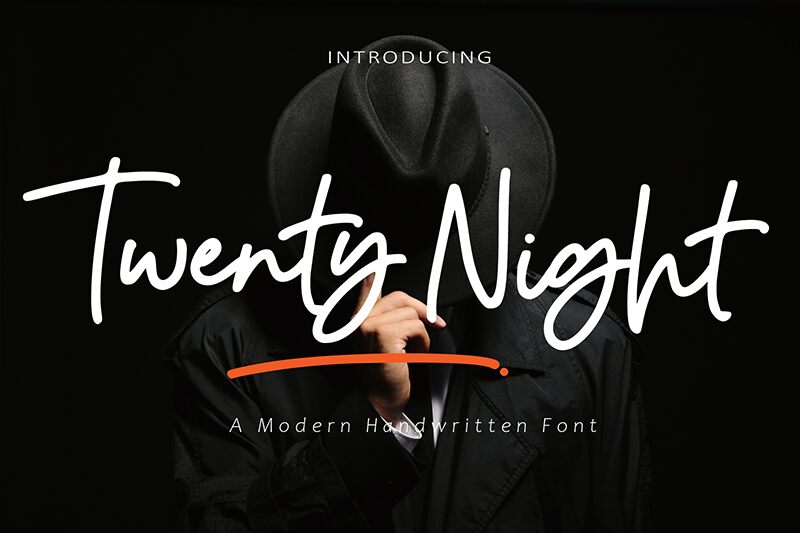
Twenty Night font is a free handwritten font crafted by Ibrahima Studio. This expressive typeface has a casual style with an organic flow and contemporary feel. Each letter was manually created, granting a high degree of originality to the set. This informal style and irregularity get the font to look like a work of instant generation of thought which makes it ideal for applications that require a more human touch.
Integrate it into your branding projects and logos for a more free-formed look. Such use cases include album covers, apparel design, cosmetics labels, and drink products labels. Fonts like this can also be integrated into higher fidelity fashion design sketches. It could be applied to written photographs or any custom design that highlights the texture.